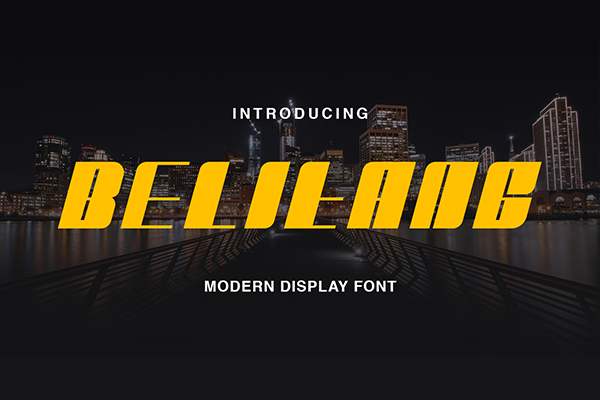
Please Visit Our Other Product: https://crmrkt.com/GrkQw9 BELITANG - the display font is neatly made and carries a thick, strong and sporty theme. What includes: - BELITANG TTF - Works on PC & Mac - Simple installation - Accessible in Adobe Illustrator, Adobe Photoshop, Adobe InDesign, also works in Microsoft Word. - Can be accessed completely without additional design software. Thank you for your download Hope you enjoy our font! ~ Sixtwenty Studio ~ |